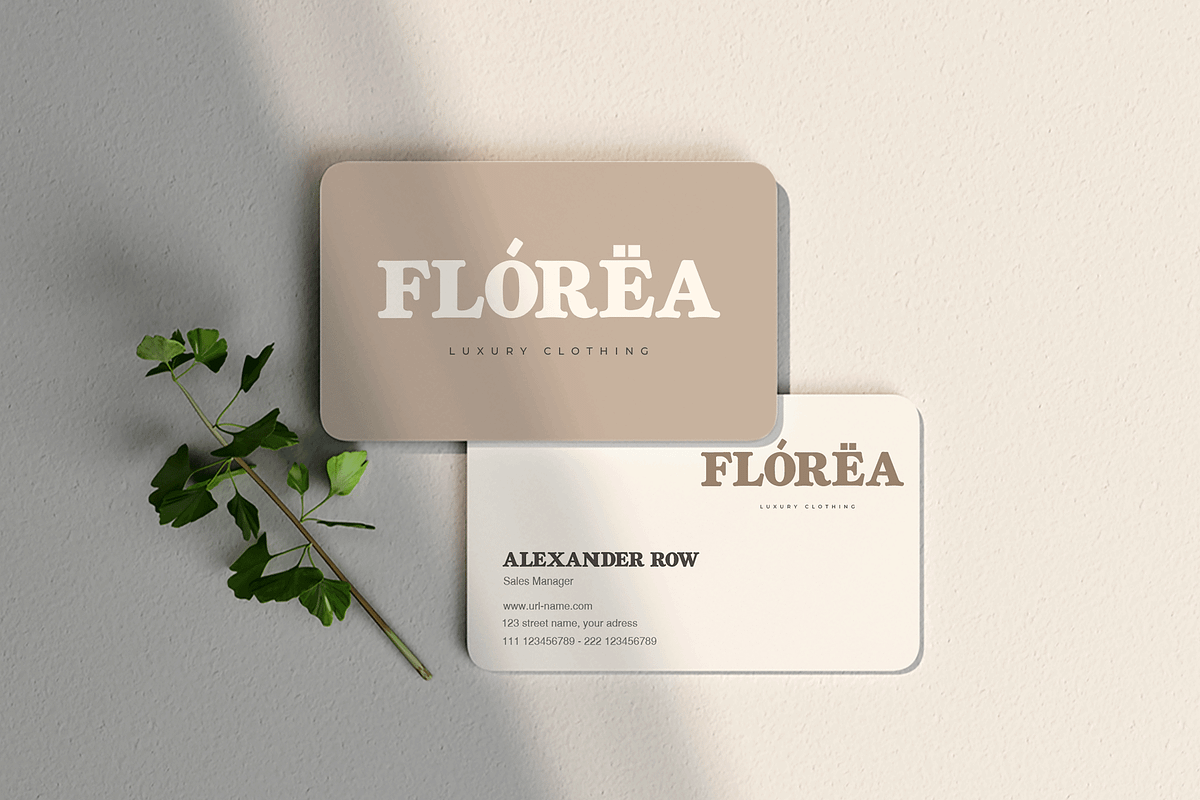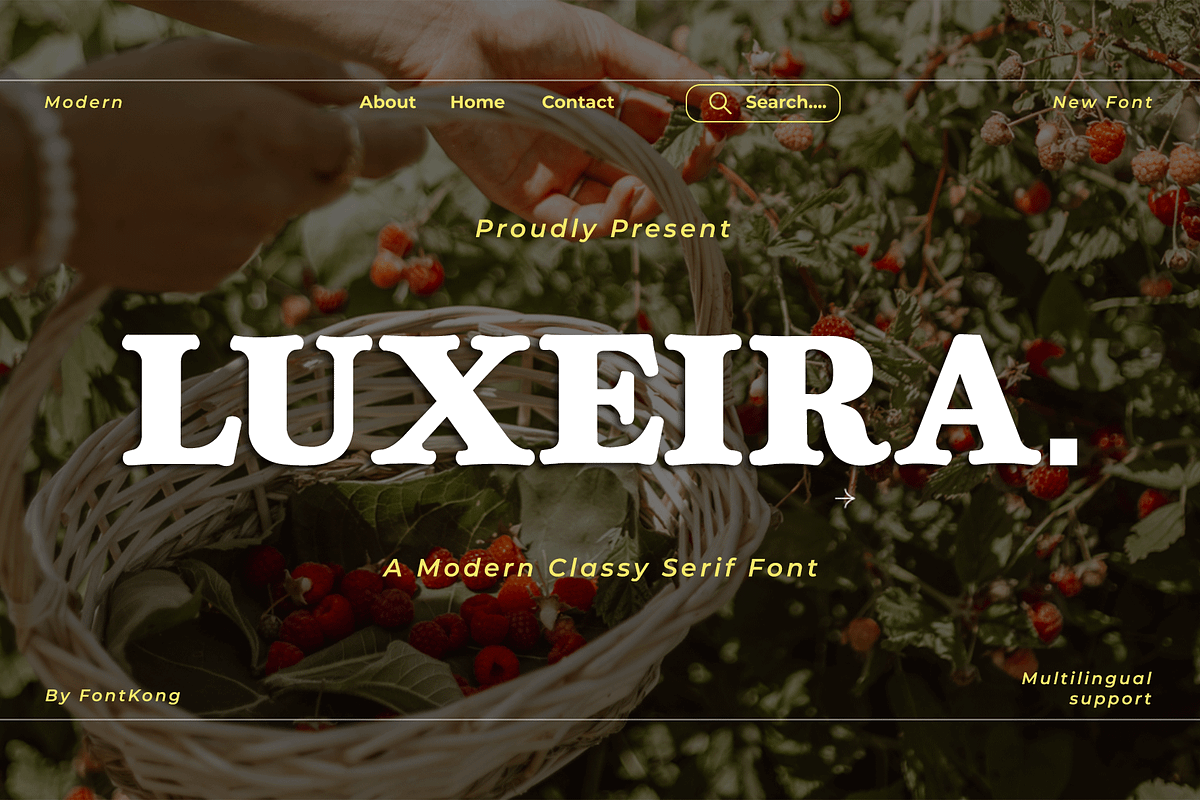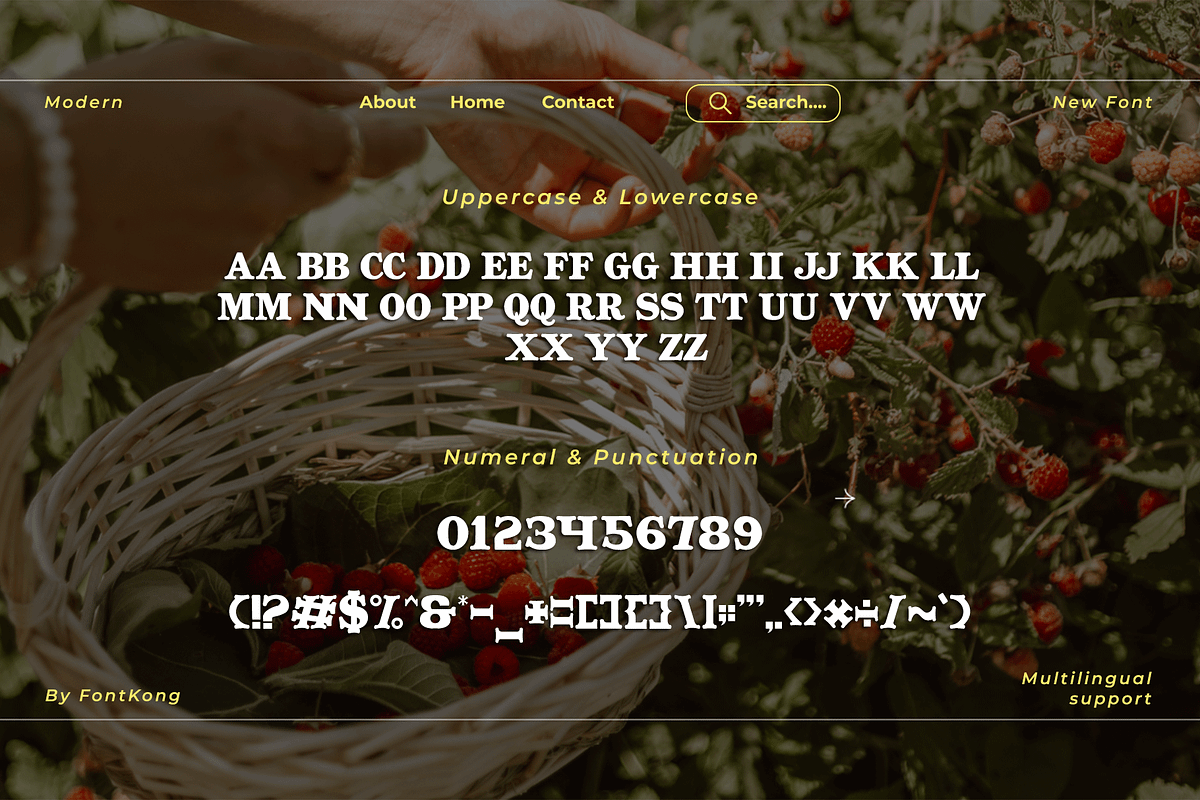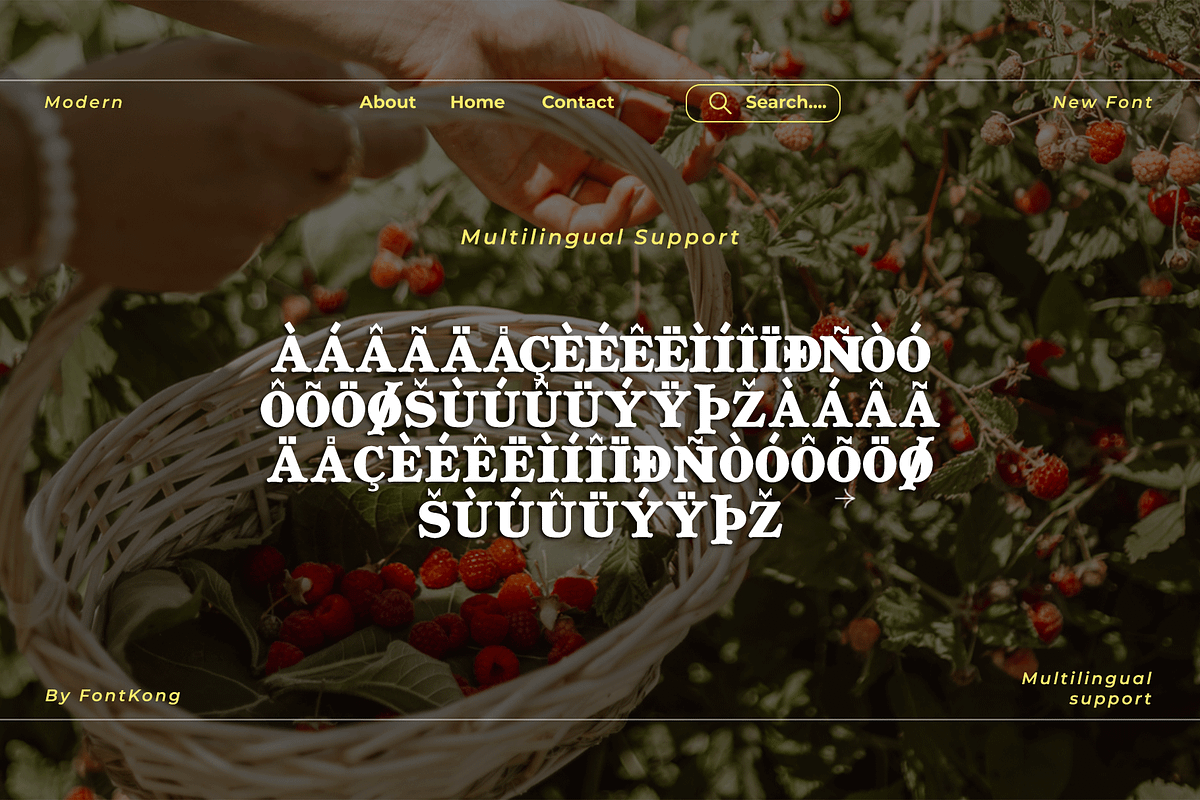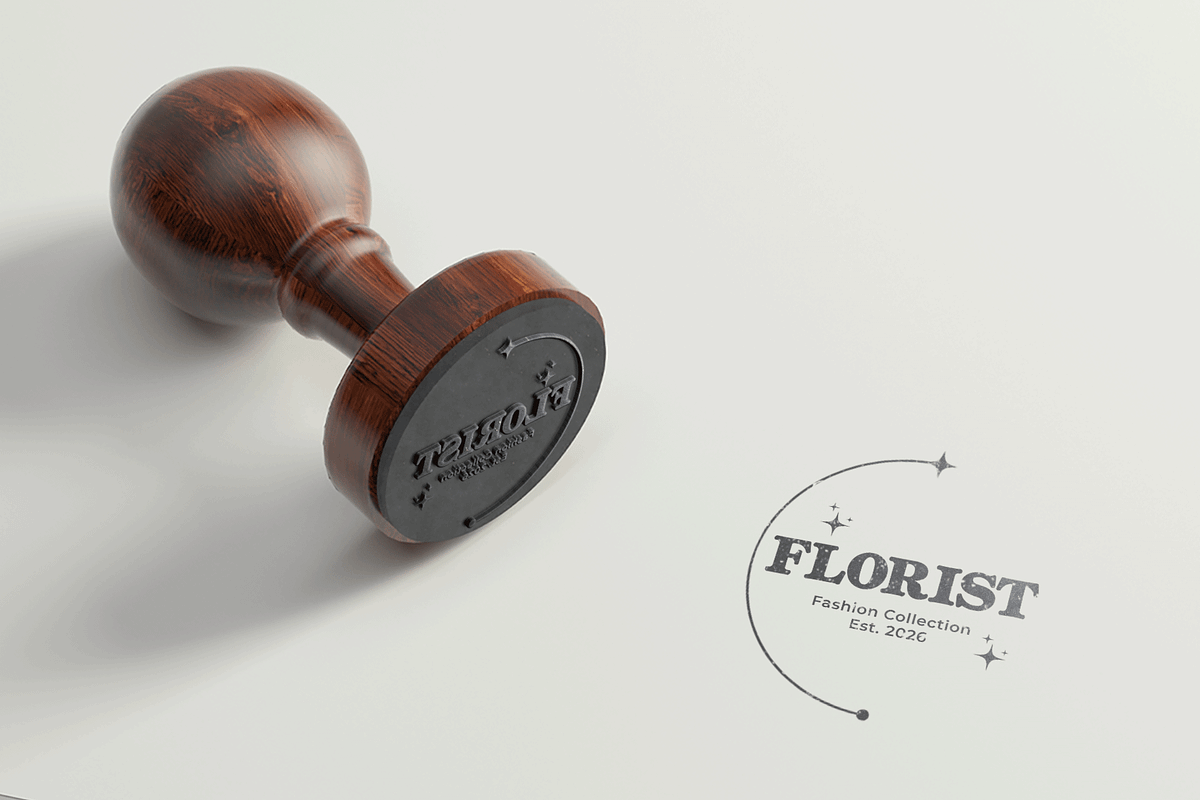
Luxeira - A Modern Classy Serif Font
Luxeira is a modern classy serif font that radiates luxury and refinement. Designed to enhance your creative projects, it offers a perfect balance of sleek lines and graceful serifs, making it ideal for upscale branding, editorial layouts, wedding invitations, and more.
With stylish alternates, ligatures, and extensive multilingual support, Luxeira is versatile and sophisticated. Whether you're designing logos, magazine covers, or elegant product packaging, this font ensures a polished and professional look.